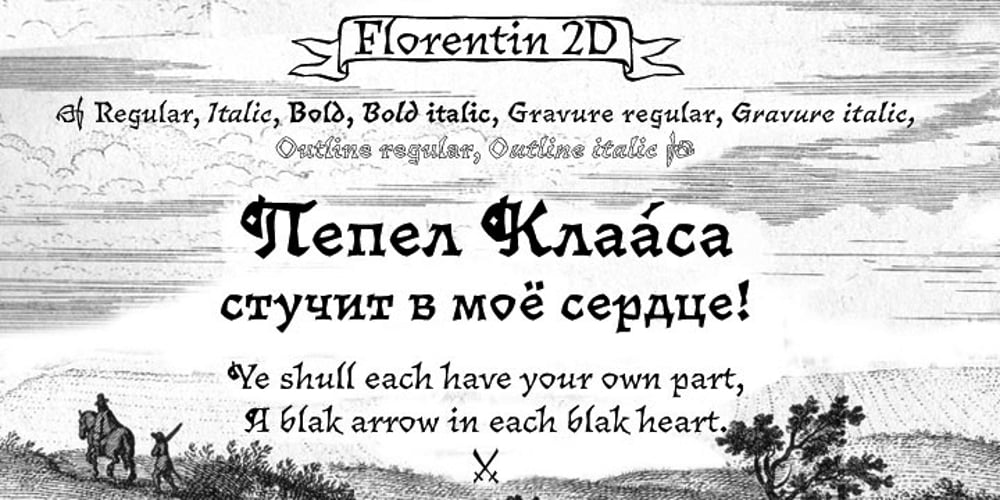
Florentin 2D
Florentin 2D font
Florentin 2D Font Family was designed by Viktor Kharyk and published by 2D Typo. Florentin 2D contains 8 styles and family package options. Angular Old Style by Viktor Kharyk is usable as display font, for non-formal texts, especially poetry, for children books and virtual games about adventures, history, and pirates and includes some original ornament set. By stylistic it connects with Italian Renaissance, Czechian types of the first half of 20th century and cut technology.